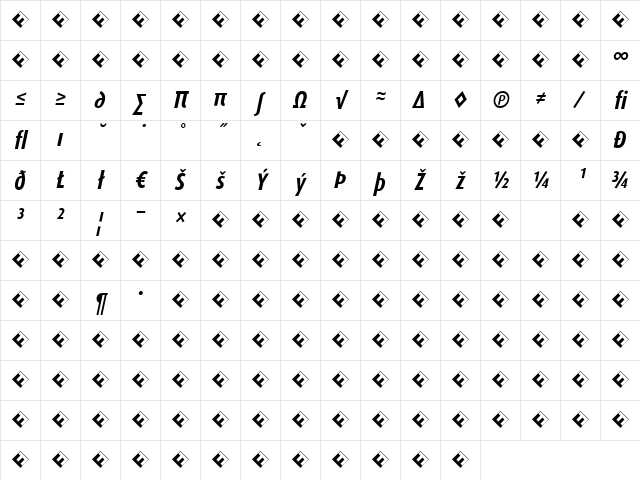
Complete DaxCondensed-BoldItalicExp ItalicBold glyph index. Displaying only characters natively supported by DaxCondensed-BoldItalicExp ItalicBold font.
DaxCondensed-BoldItalicExp is a composed and adaptable typeface that performs quietly and consistently across a wide range of design contexts. The slanted form adds forward momentum and visual energy. Its bold stroke weight gives it real presence on the page. Its narrow stance lets it pack a punch even in space-constrained designs.
Pro Tip: Use DaxCondensed-BoldItalicExp for emphasis, pull quotes, and subheadings where its slanted energy can add rhythm to the layout.